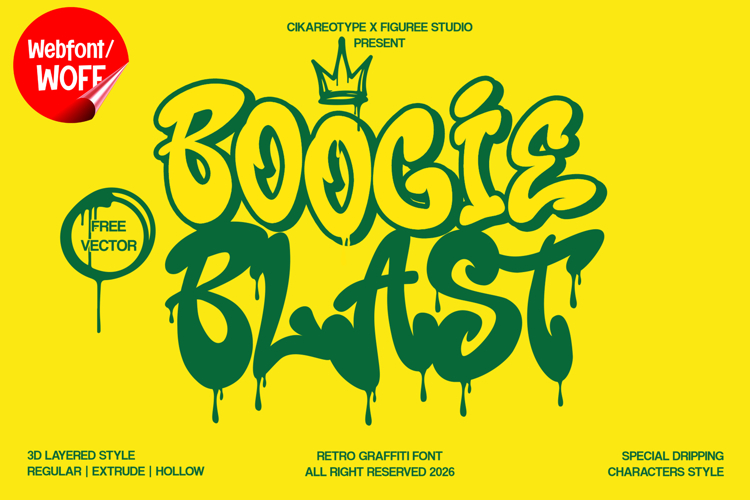
Boogie Blast | Webfont 3D Retro Graffiti for Websites
Boogie Blast Webfont is a bold and playful 3D groovy graffiti typeface designed to bring retro energy into digital environments. Inspired by vintage typography and street art culture, this font combines smooth curves, bold shapes, and dripping effects to create a strong visual presence for modern websites.
Typography plays a key role in digital design, especially in capturing user attention. Boogie Blast is crafted as a display webfont, making it ideal for headlines, hero sections, landing pages, banners, and promotional content. Its unique style ensures that key messages stand out clearly.
This webfont includes four styles: Regular, Dripping, Hollow, and Extrude. The Regular style offers bold and clean groovy letterforms. The Dripping style adds expressive details for a graffiti effect. The Hollow style provides outline variations for creative layering. The Extrude style introduces depth, giving a 3D appearance that enhances visual impact.
The font is highly suitable for creative websites, music platforms, streetwear brands, event pages, and digital campaigns. Its retro-groovy style creates a fun and engaging user experience while maintaining strong visual identity.
One of the key strengths of Boogie Blast in web design is its ability to function as a focal point. When used in headlines, it draws attention and enhances visual hierarchy. This makes it effective for call-to-action sections and promotional banners.
Despite its bold and decorative style, the font remains readable at display sizes. Designers can pair it with simple fonts for body text to maintain balance and usability.
The 3D and dripping effects add depth and motion to web layouts. When combined with animations or interactive elements, the font creates a more immersive browsing experience.
Overall, Boogie Blast Webfont transforms typography into a vibrant visual experience. It brings retro energy and graffiti expression into digital design, helping websites stand out and engage users.